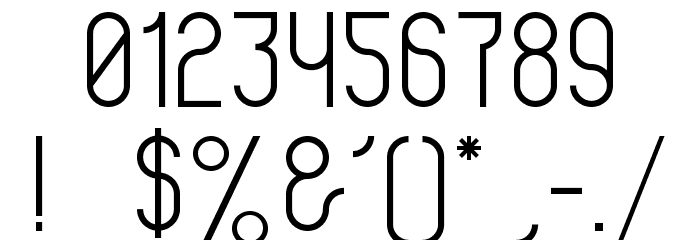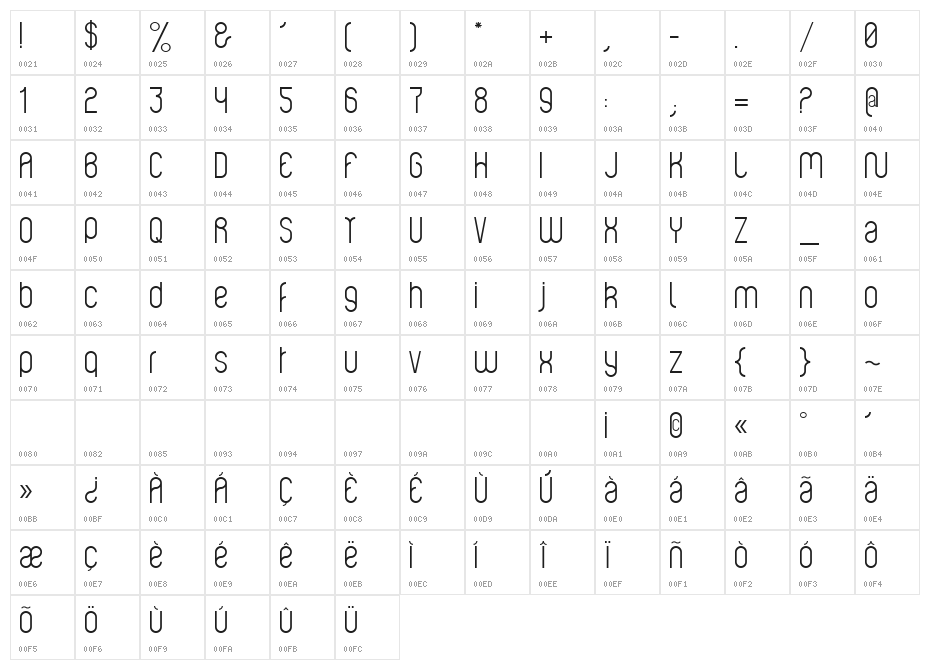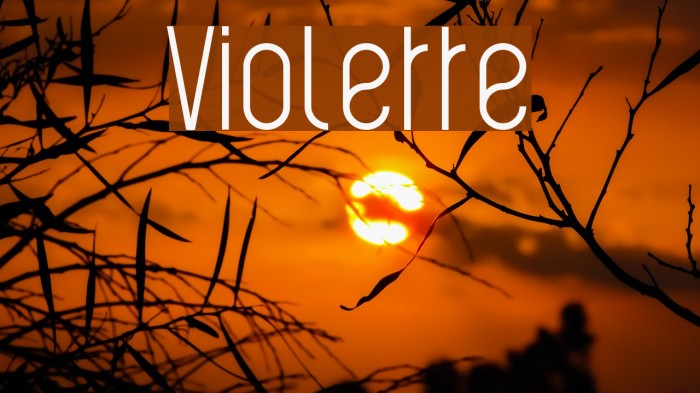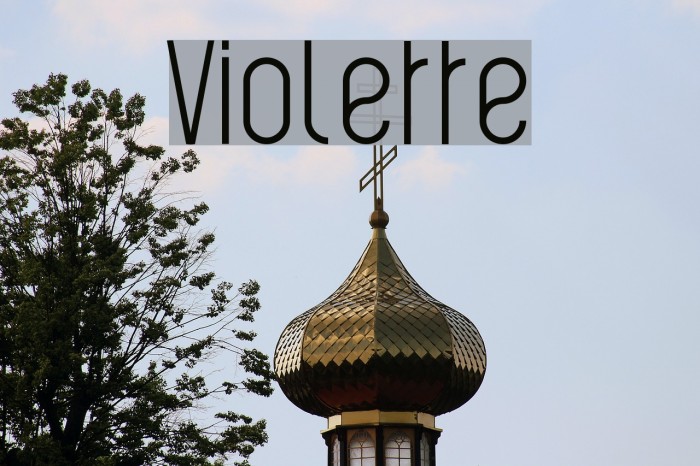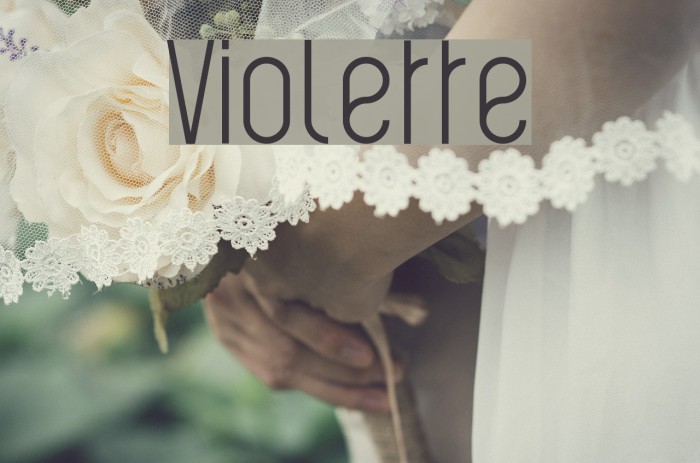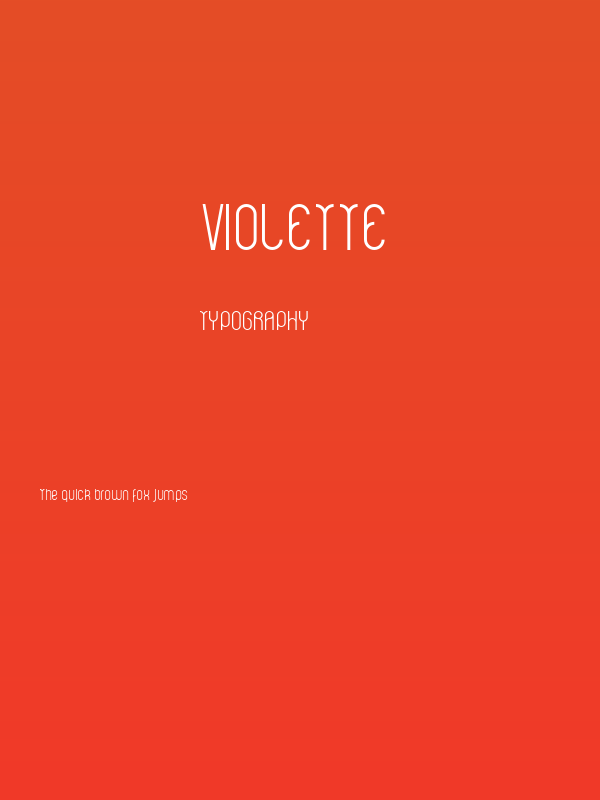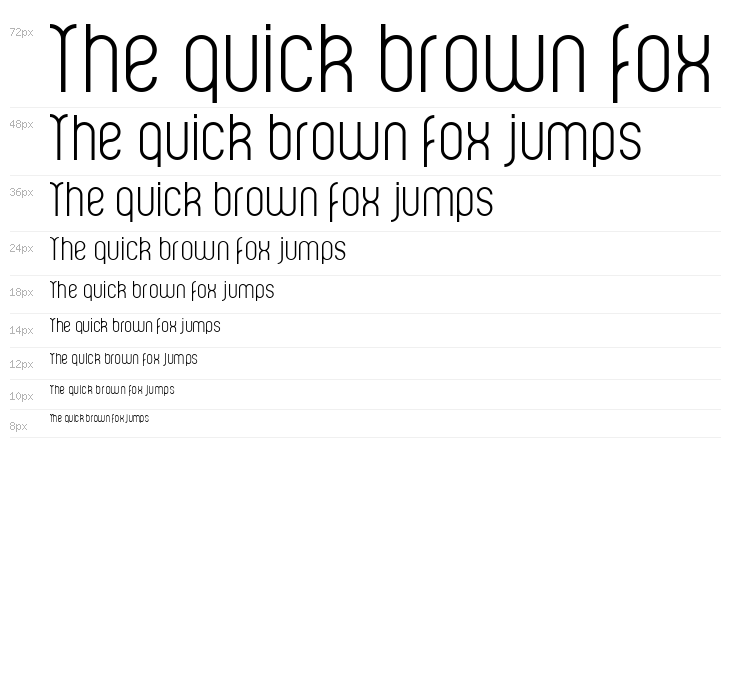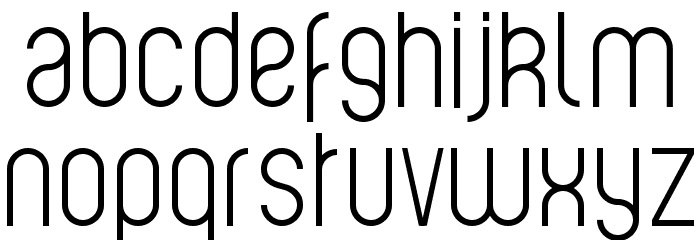
Violette Font
Violette Description
This font features a sleek, modern design with rounded edges and a geometric structure. The characters are tall and narrow, giving a condensed appearance. The uppercase letters have a uniform height, while the lowercase letters maintain a consistent baseline with slight variations in ascender and descender lengths. The numerals are proportionate and align well with the overall style. Special characters are integrated seamlessly, maintaining the font's clean and contemporary aesthetic. The design is minimalistic, focusing on clarity and readability, making it suitable for various digital and print applications.
| Proposed Projects | Ideal for branding, digital interfaces, modern print materials, and minimalist design projects. |